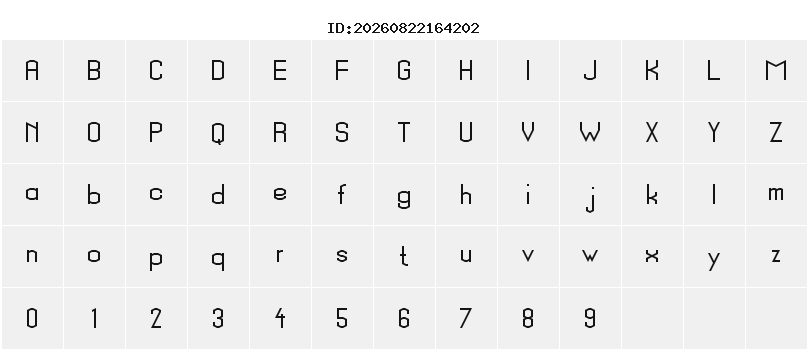
• Font Name: Schrottinger
• Full Font Name: Schrottinger Regular
• Designer: Justus Schrotte
• Description: Schrottinger was built with Fontula
About Schrottinger.ttf
Schrottinger.ttf is a modern, elegant sans-serif font designed for ultimate readability and visual harmony. Perfect for branding, headlines, web design, and print materials.